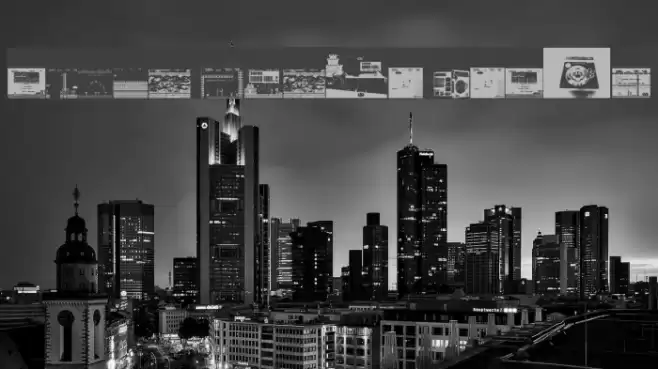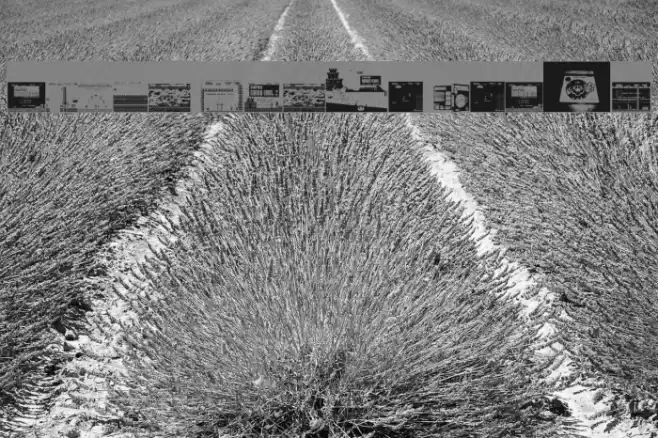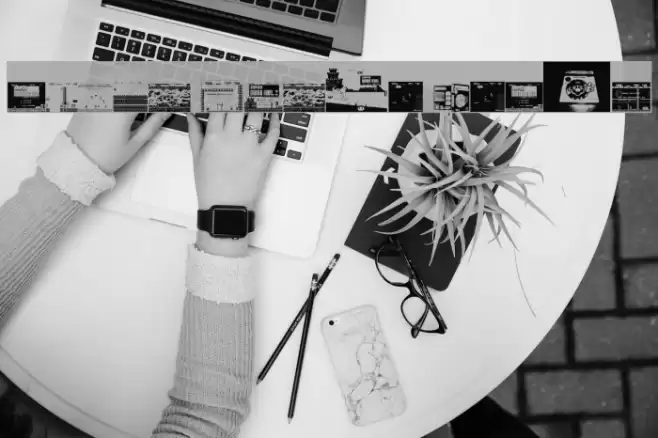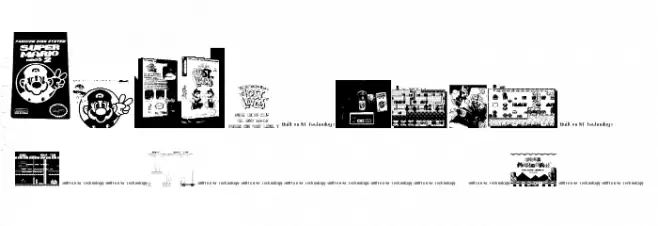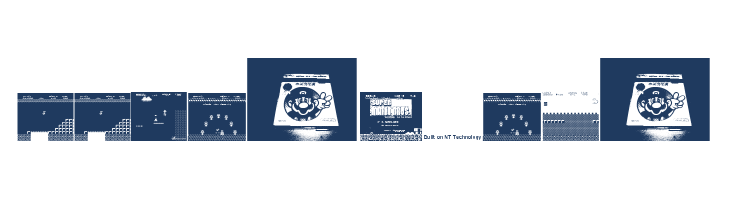
Super Mario Lost! Font
This font features bold, blocky, and highly legible characters with a playful and retro aesthetic. The letterforms are rounded with uniform stroke thickness, evoking a sense of nostalgia and fun. The numerals and special characters are consistent in style, maintaining the overall cohesive look.
A bold, playful, retro-inspired font with rounded, blocky characters from Dingbats fonts.
- Proposed Projects: Video game titles, children’s products, posters, branding for entertainment or toy companies.
- Overall Style: Retro, Playful, Decorative
- Use Case: Headlines, Logos, Posters, Packaging